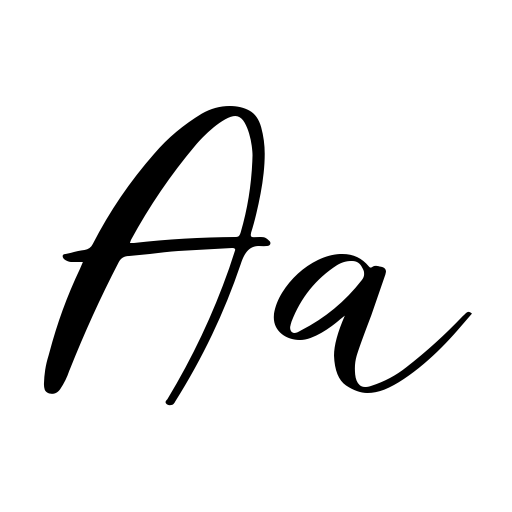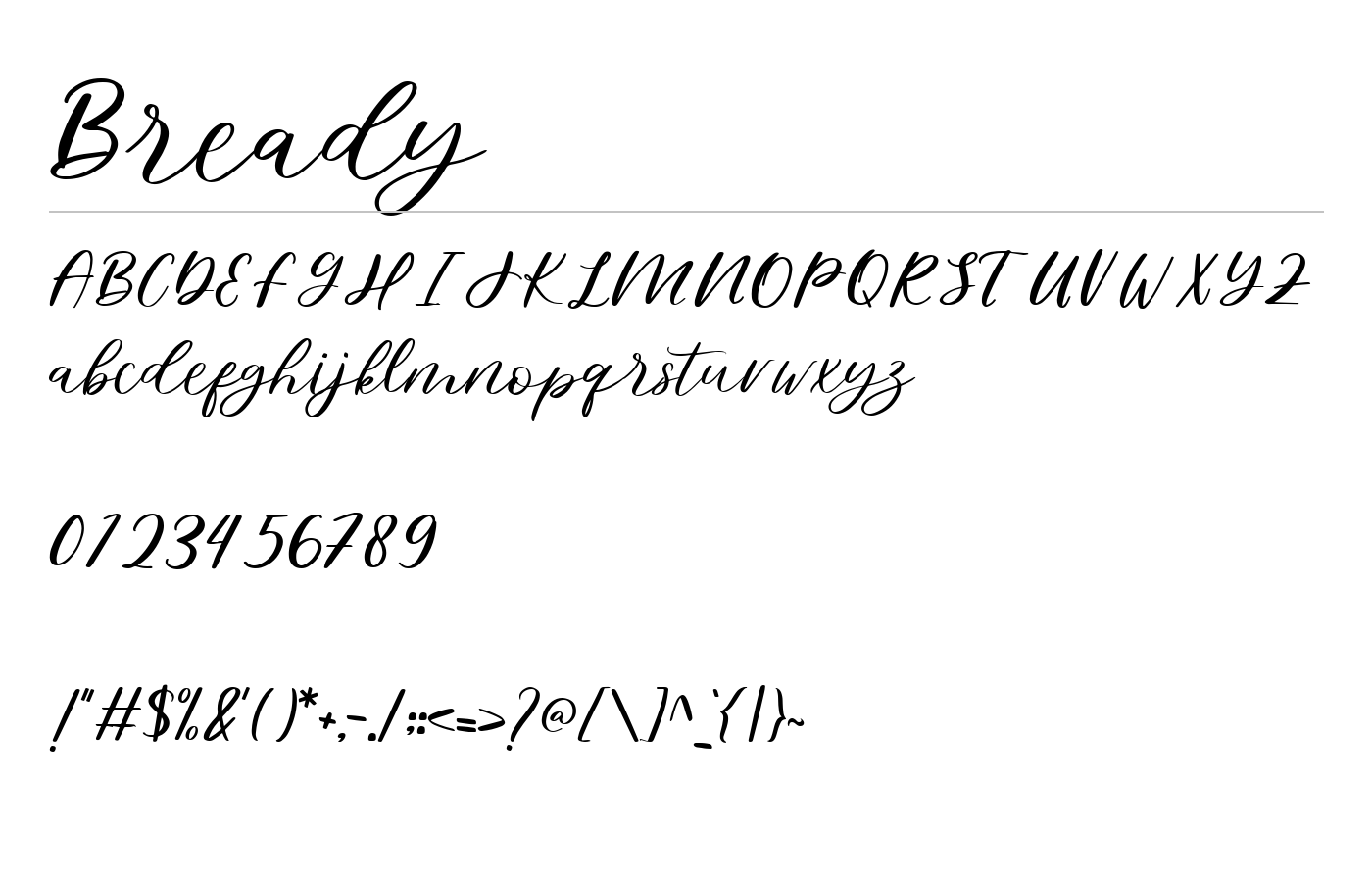
Bready is a graceful script font with smooth, flowing strokes that give it an elegant and handcrafted feel. Its slender, slightly slanted letterforms and consistent stroke weight make it perfect for adding a personal, stylish touch to invitations, branding, and logos. This font works well wherever a warm, friendly, and sophisticated look is desired.
Bready Font
About Bready Font
| Font family | Bready Font |
| Designer | wildan suprian syah |